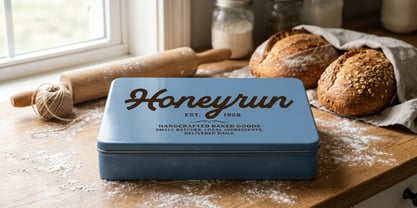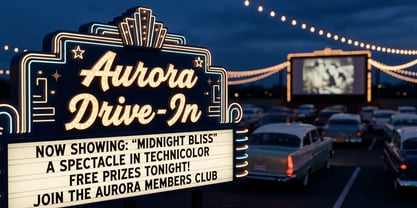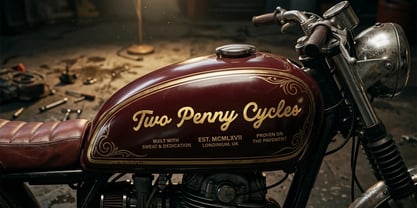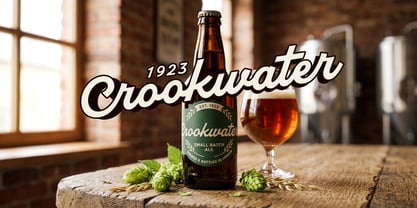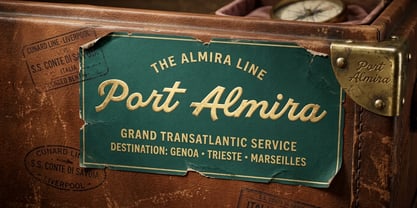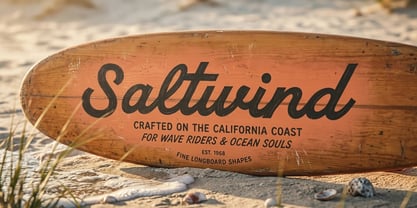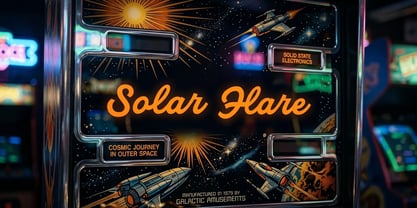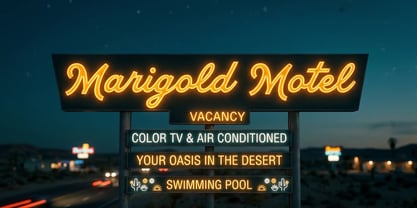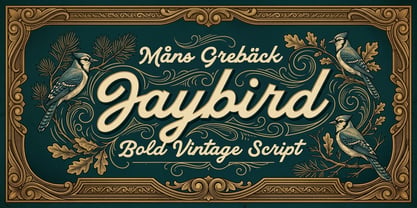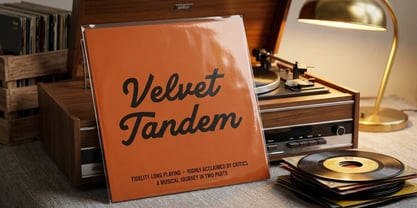
Jaybird
by Mans Greback
Jaybird is a bold vintage signature script with the easy confidence of a hand-painted sign.
The connected, monoline-weight lettering leans forward with looping ascenders and quick tapered terminals — the kind of script brushed across a mid-century soda crate, a diner window, or the headstock of an old guitar. Each letter is drawn with even pressure and a generous, rounded rhythm, so words read warm and immediate rather than fussy. The capitals swing in with a big entry stroke and the lowercase joins cleanly, keeping a smooth, legible flow at any size.
It feels at home on a bottle label, a record sleeve, a motorcycle tank, or any mark that wants to look established and a little bit golden.
The font is built with advanced functionality and guaranteed top-notch quality, containing stylistic and contextual alternates, ligatures and more automatic and manual features; all to give you full control and customizability.
It has extensive lingual support, covering all Latin-based languages, from North Europa to South Africa, from America to South-East Asia. It contains all characters and symbols you'll ever need, including all punctuation and numbers.